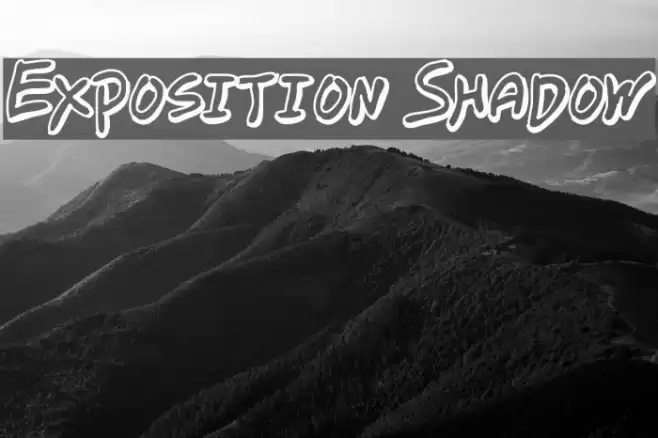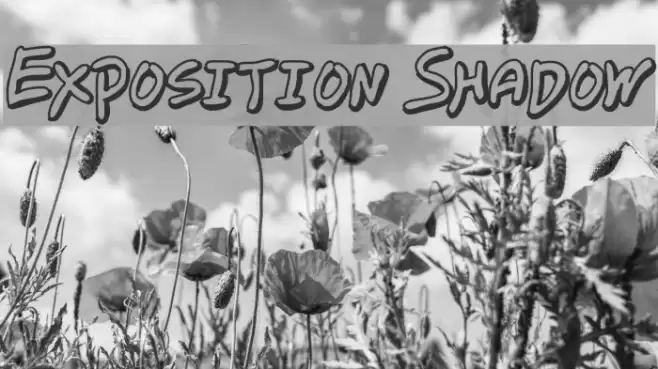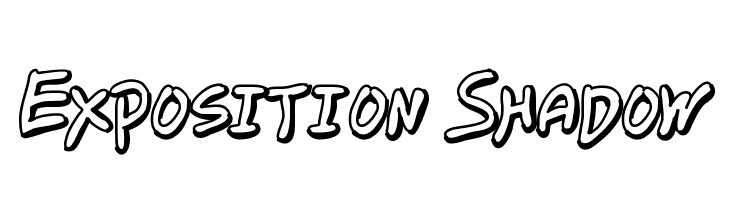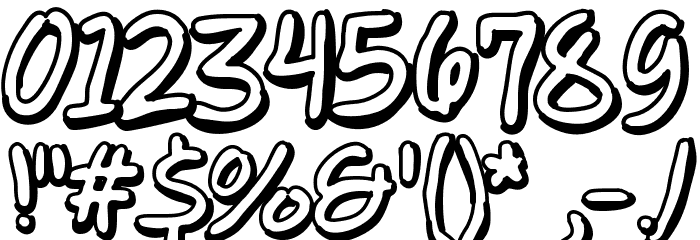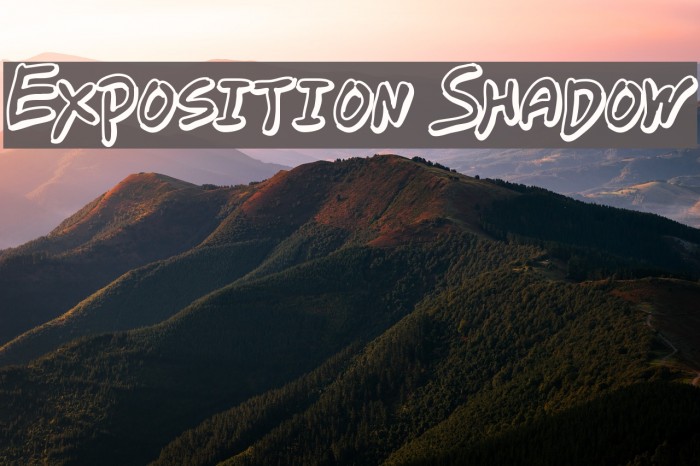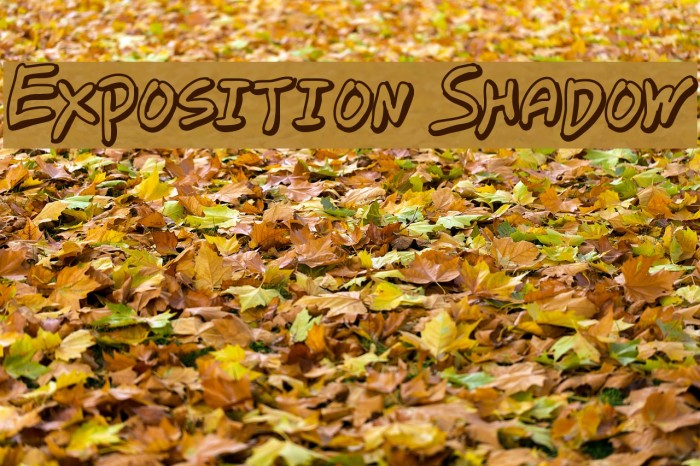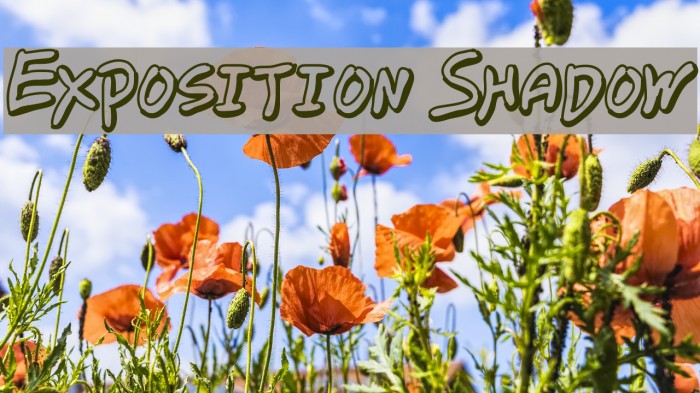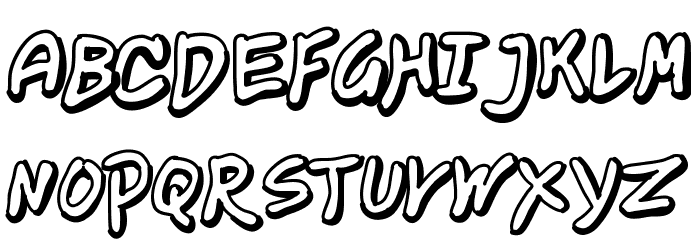
Exposition Shadow Font
Exposition Shadow Description
This font features a bold and playful style with a shadow effect that gives it a three-dimensional appearance. The characters are rounded and slightly irregular, adding a hand-drawn feel. The uppercase and lowercase letters maintain a consistent style, with the shadow creating a sense of depth. The numbers and special characters follow the same design, ensuring uniformity across all glyphs. This font is eye-catching and ideal for projects that require a fun and dynamic look.
A bold, playful font with a shadow effect, offering a hand-drawn, three-dimensional appearance from Uncategorized fonts.
- Proposed Projects: Ideal for children's book covers, playful posters, comic strips, and any design needing a lively and engaging font.
- Overall Style: Playful, Fun, Dynamic
- Use Case: Headlines, Posters, Logos